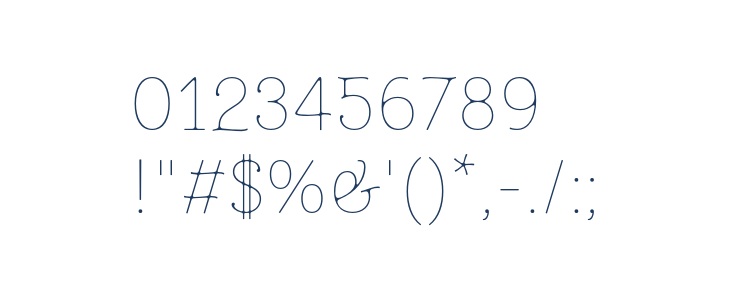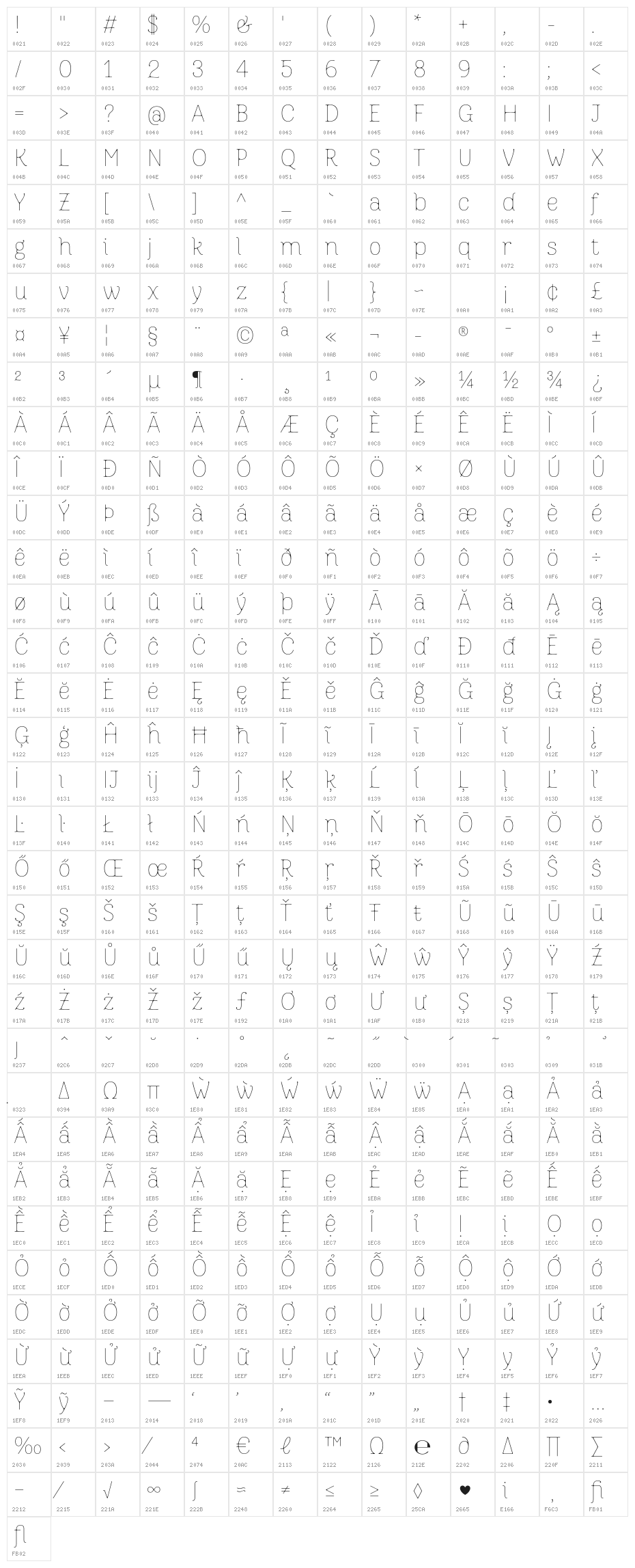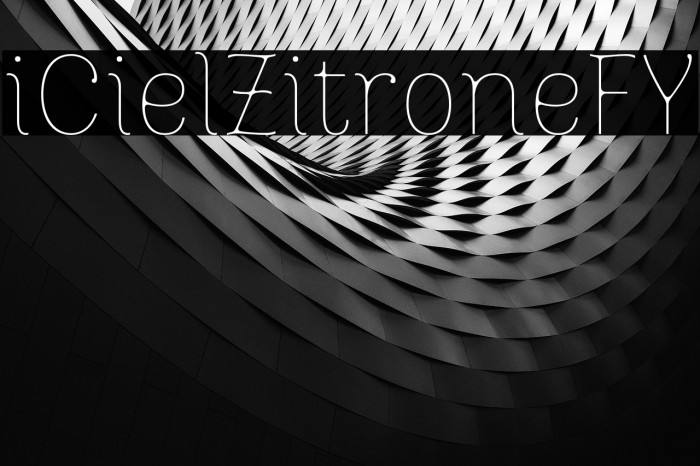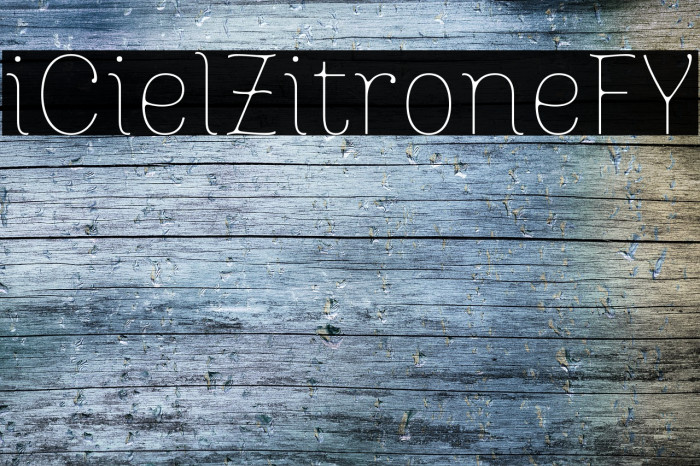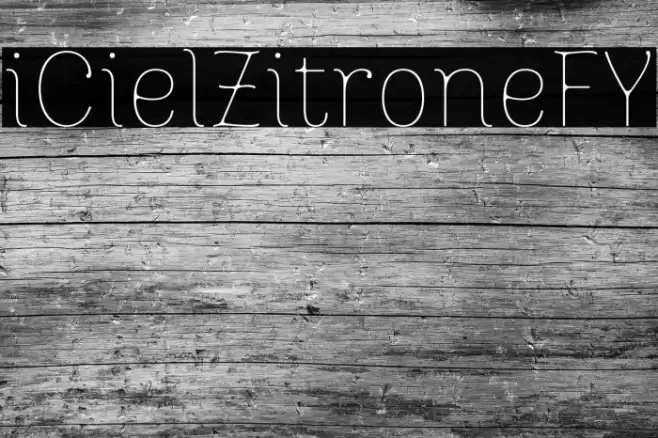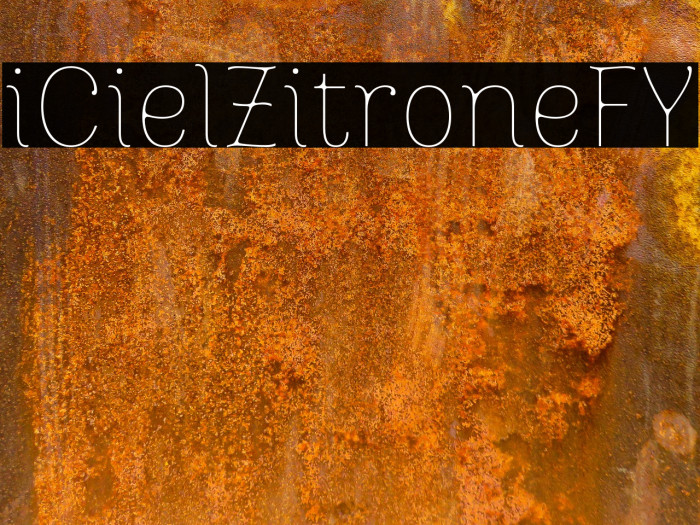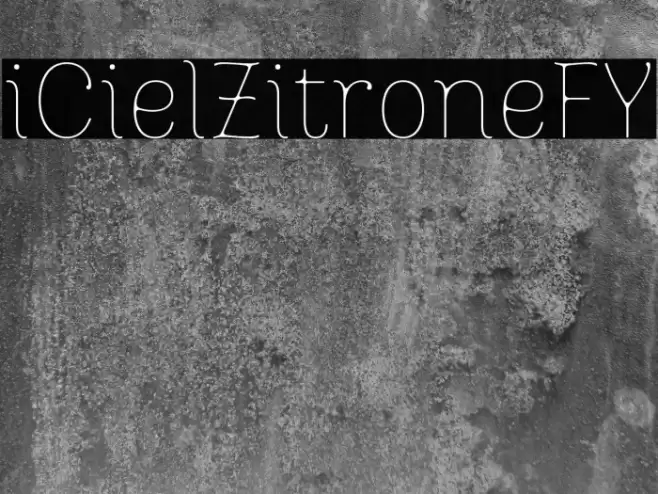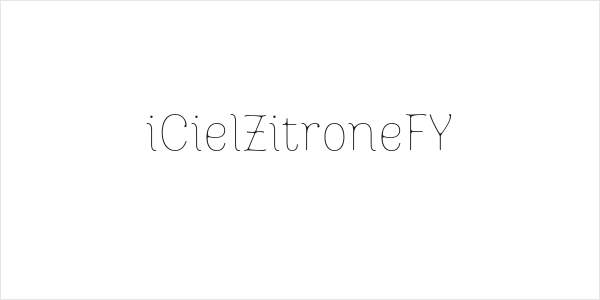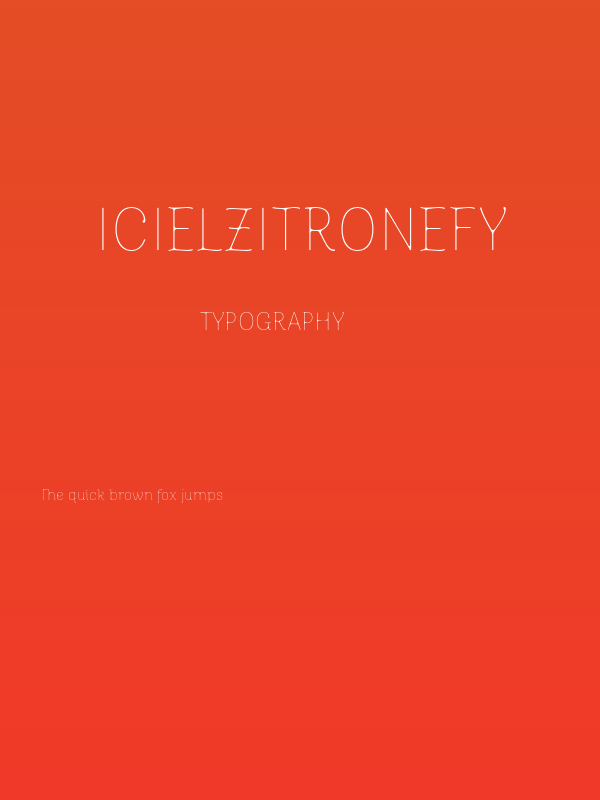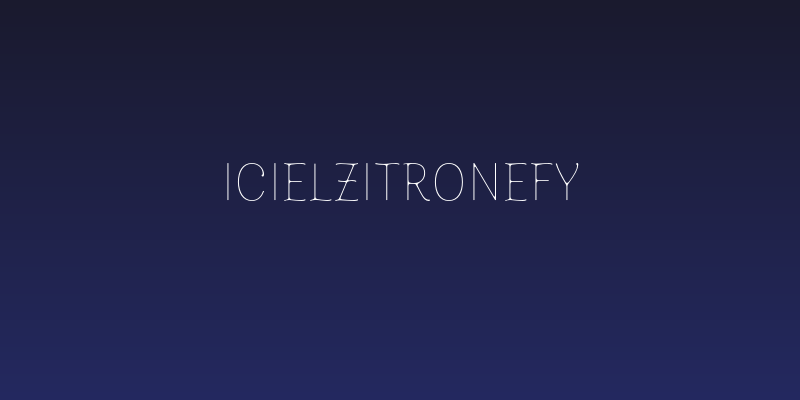
iCielZitroneFY Font
iCielZitroneFY Description
This font features a delicate and elegant design with thin, consistent strokes that give it a light and airy appearance. The characters are slightly elongated, with a subtle curvature that adds a touch of sophistication. The uppercase letters maintain a uniform height, while the lowercase letters have a gentle, rounded quality. Numbers are clear and legible, with a similar thin stroke weight. Special characters are designed with the same attention to detail, ensuring consistency across the entire typeface. This font's simplicity and elegance make it versatile for various design applications.